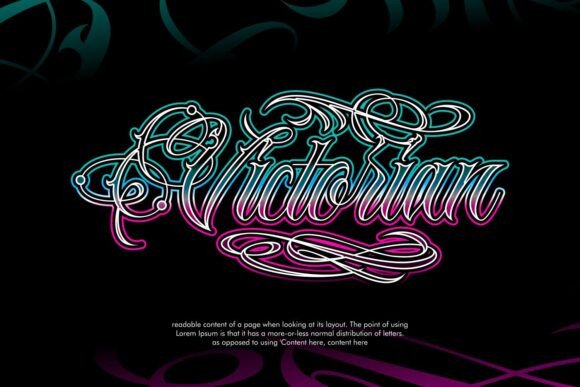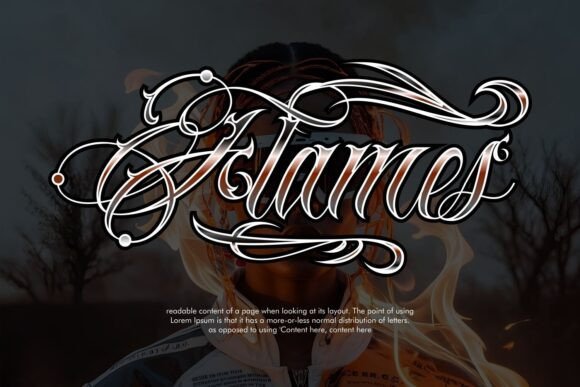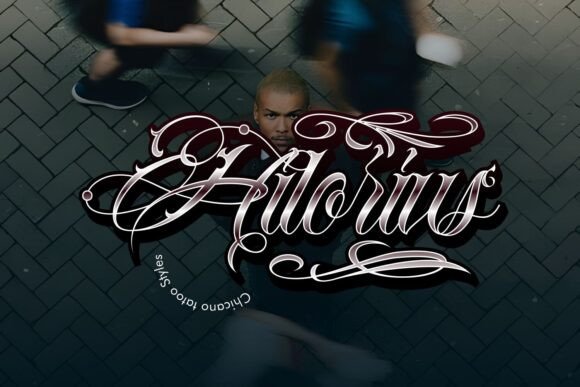
Chicago Font
Unleash your creativity with Chicago, a premium collection of bold blackletter, elegant script, and Chicano calligraphy fonts tailored for tattoo artists, designers, and branding professionals. Perfect for custom tattoo lettering, streetwear branding, and vintage-inspired artwork, this font bundle captures the raw, artistic essence of tattoo culture.